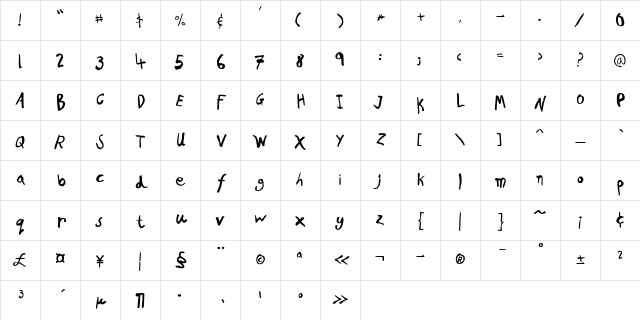
Complete PF Kids Pro Grade Three Regular glyph index. Displaying only characters natively supported by PF Kids Pro Grade Three Regular font.
PF Kids Pro Grade Three has an approachable, lighthearted character - its loose, expressive forms are well-suited to children's content, casual branding, and fun-first design.
Font Pairing: Pairs well with a rounded or humanist sans for body copy, maintaining the friendly tone without relying on PF Kids Pro Grade Three to carry extended reading.
Pro Tip: Use PF Kids Pro Grade Three at larger display sizes where its expressive character can land. Pair with a clean, simple sans for body copy to maintain readability.